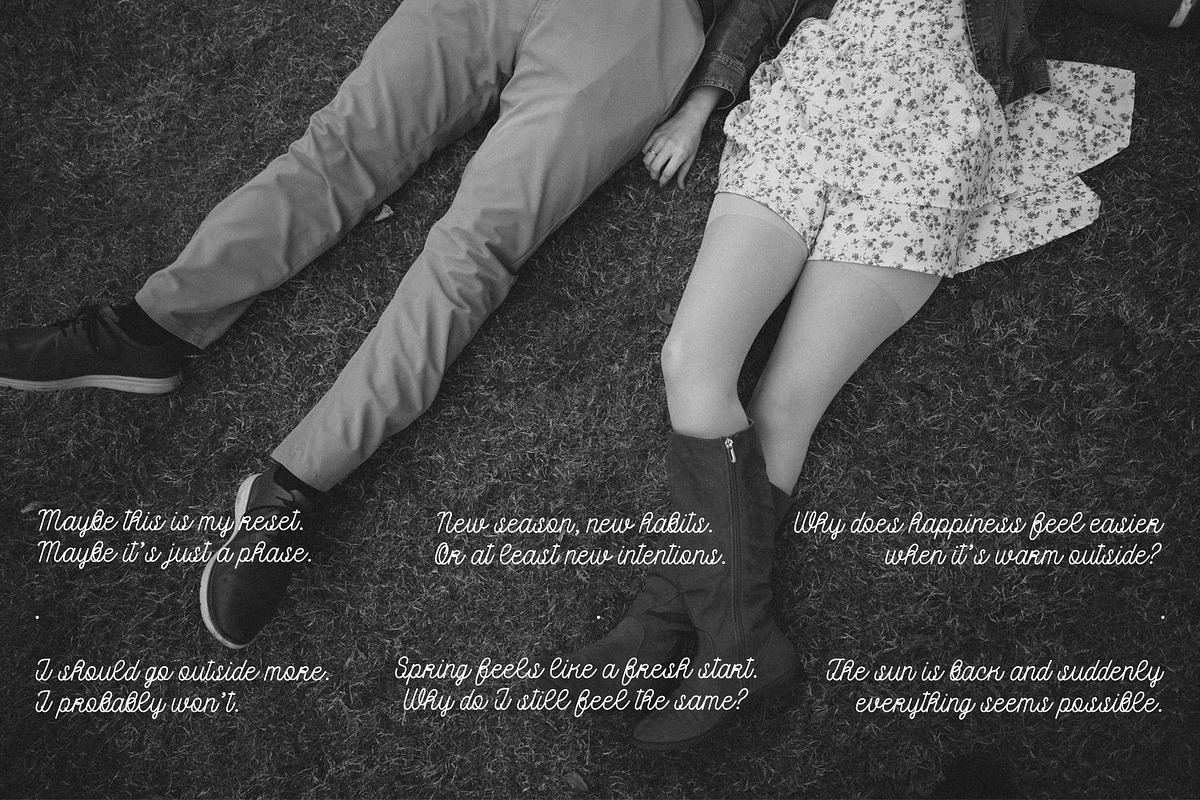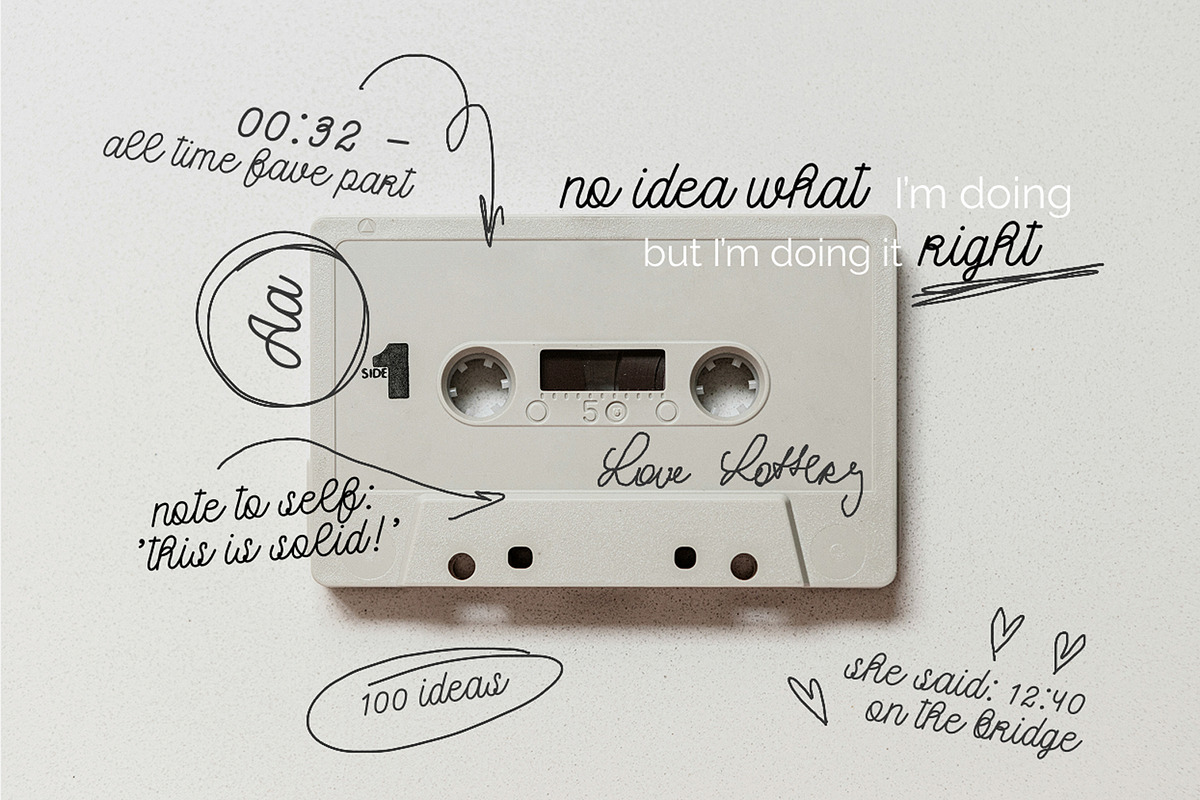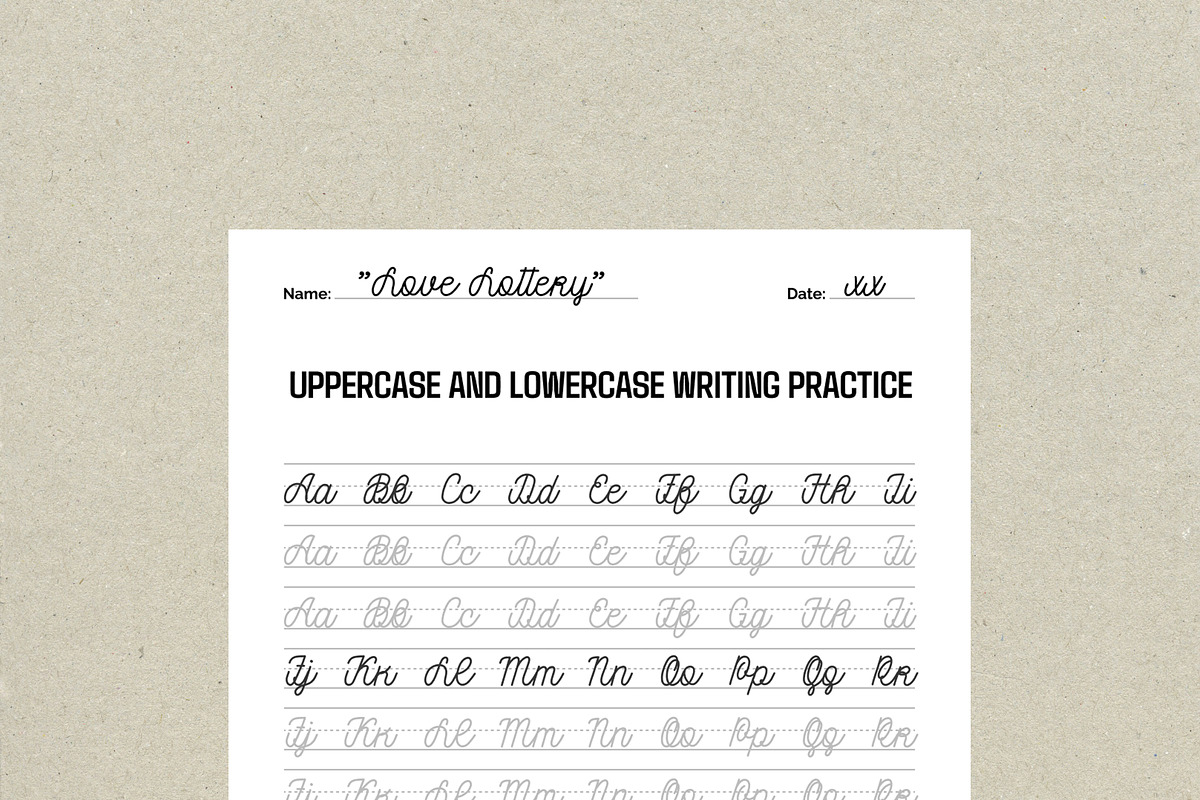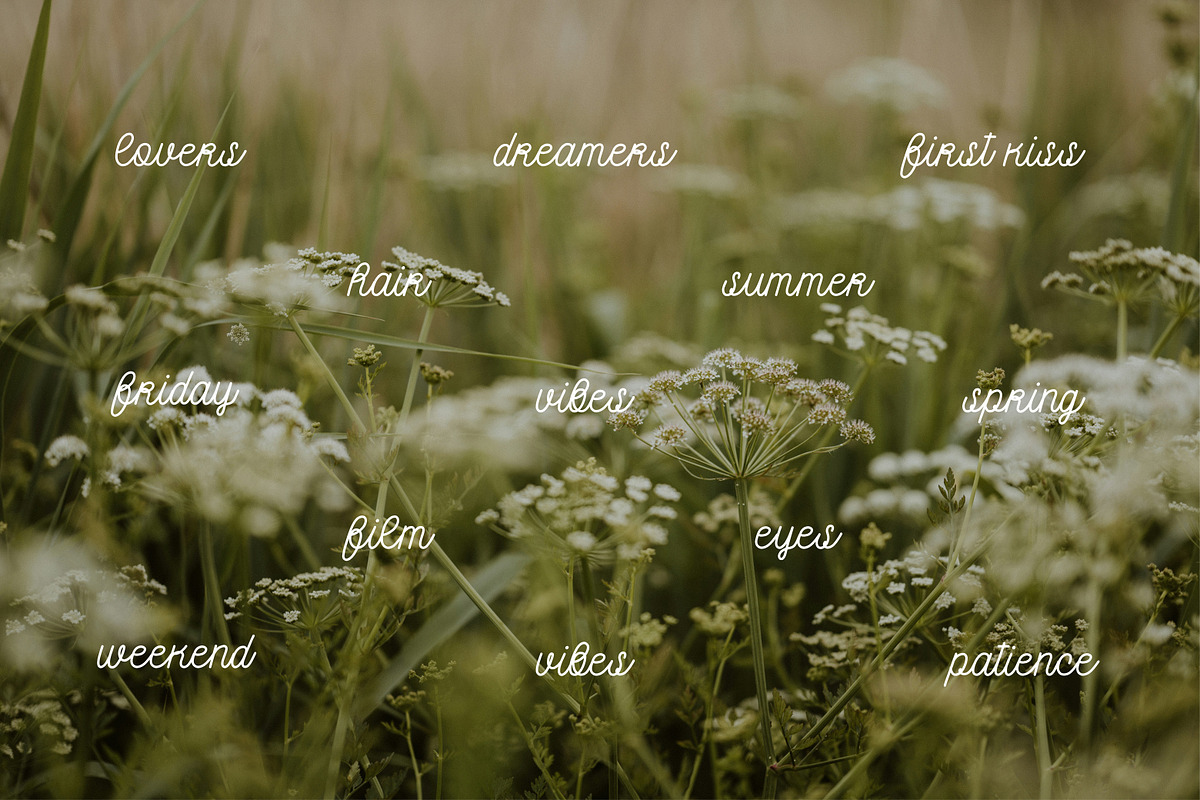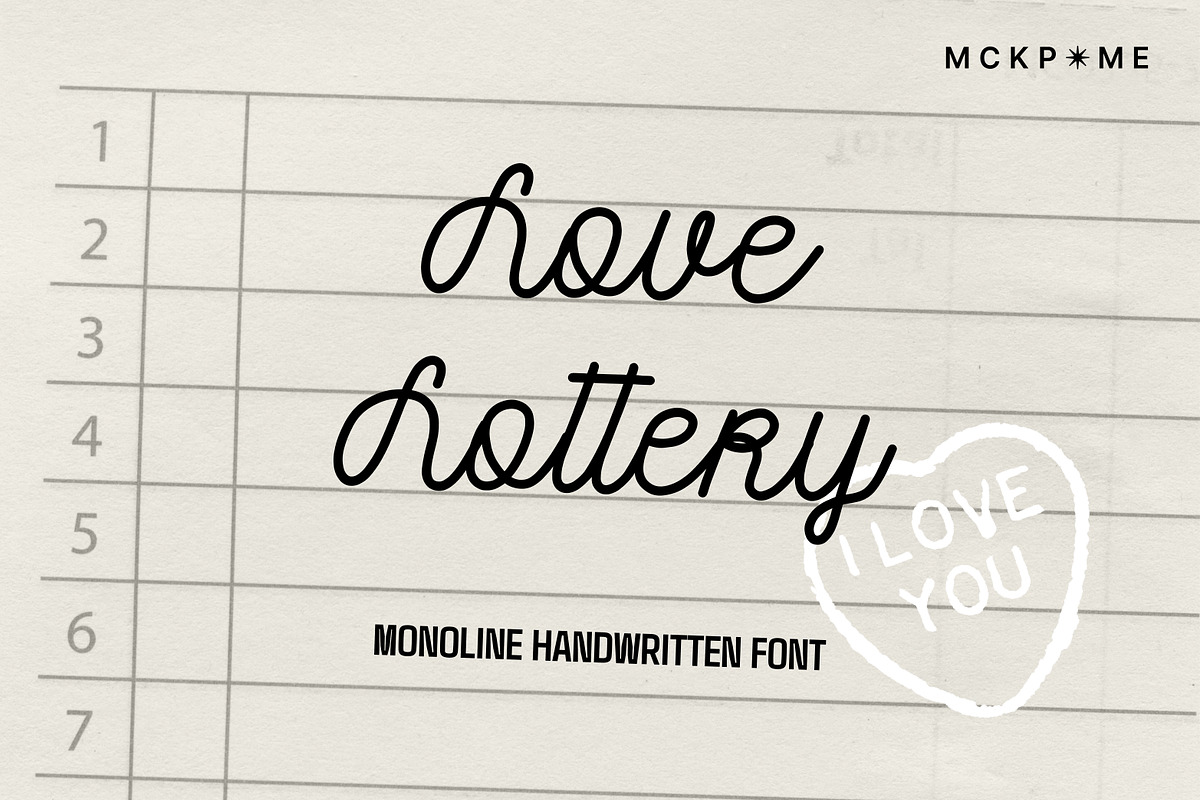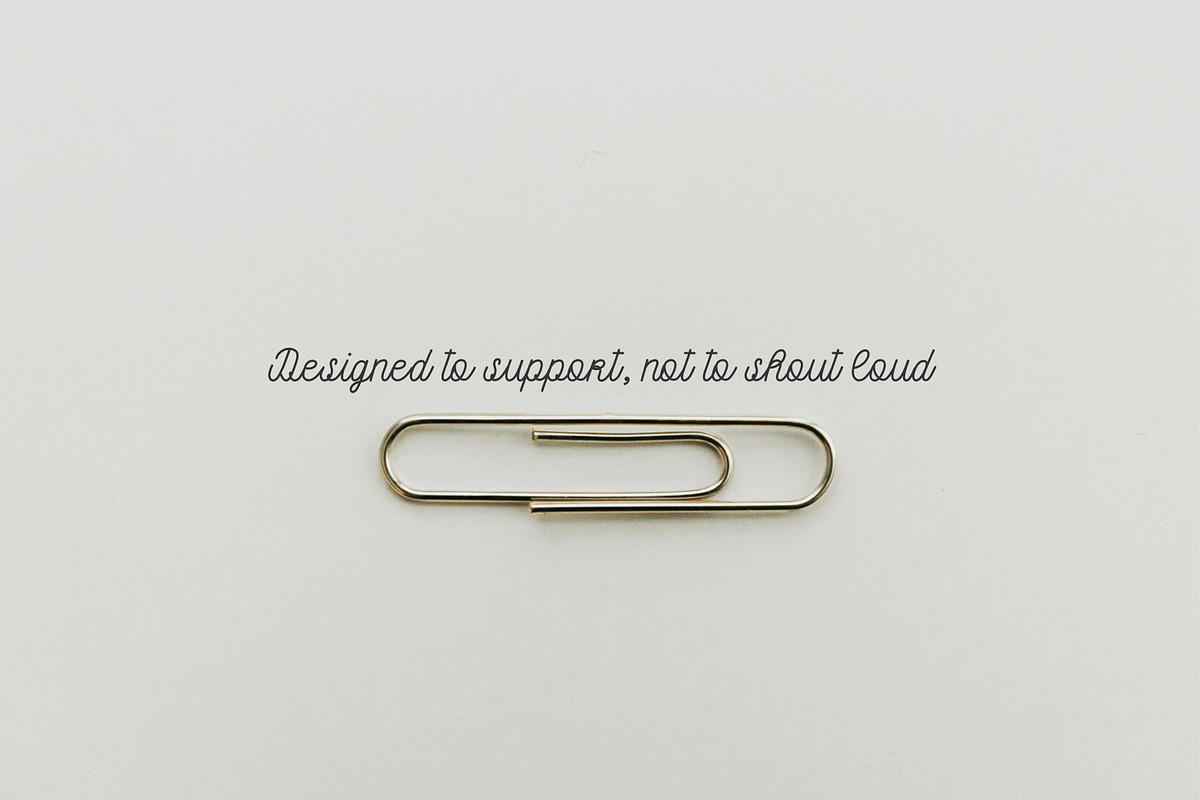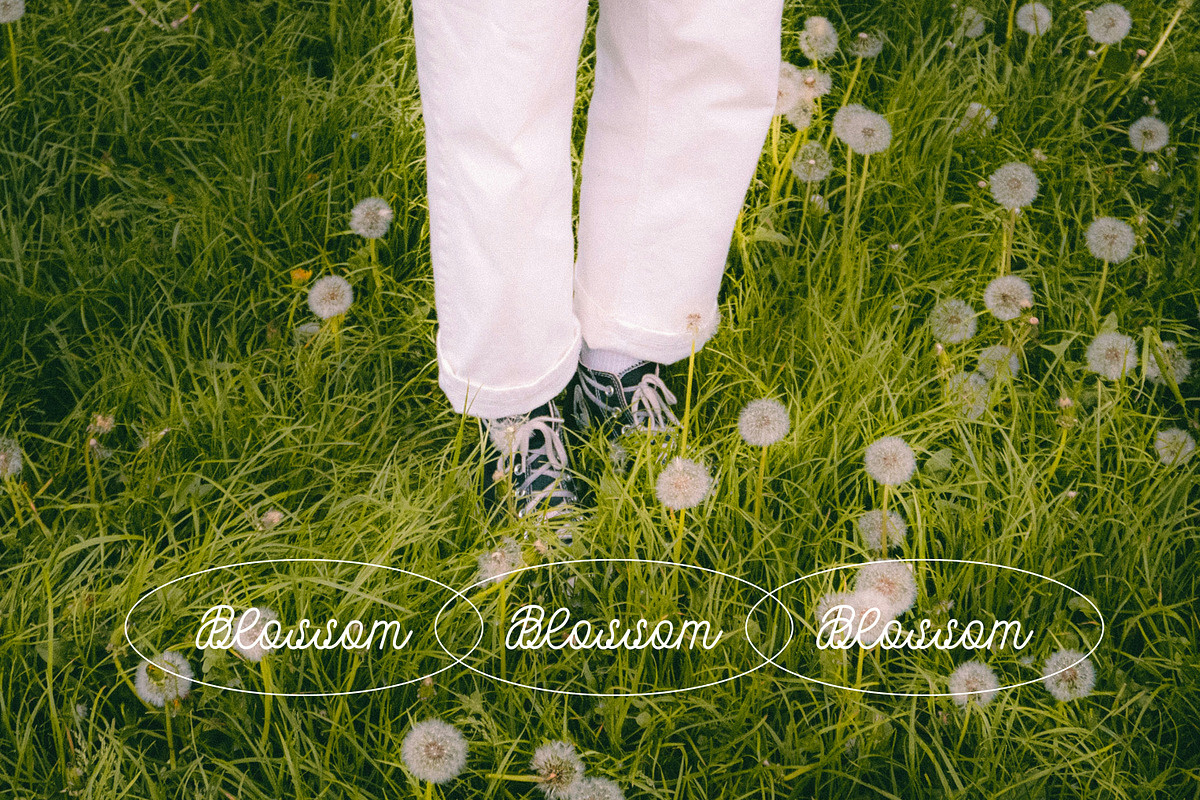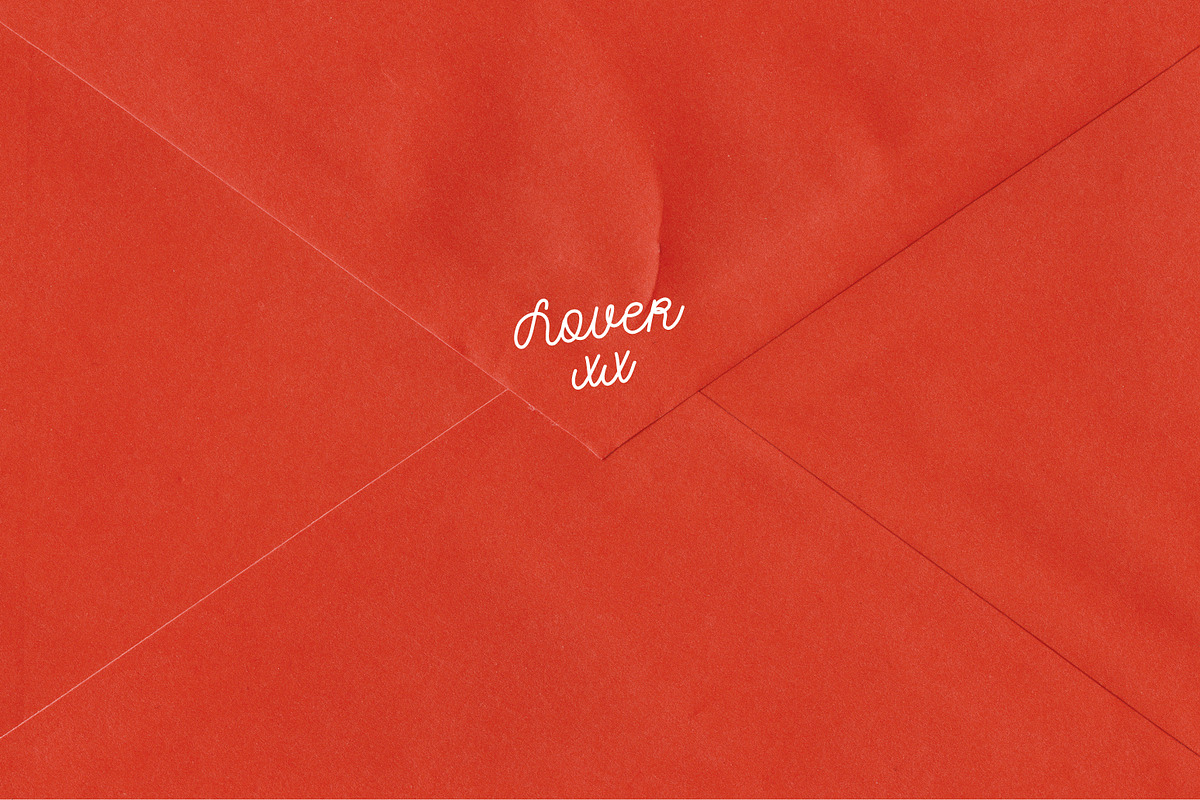
Love Lottery: Monoline font
“LOVE LOTTERY” is a clean monoline script with a soft, rounded feel.
It captures the look of naturally neat handwriting — simple, balanced, and easy to read. Effortless, but still full of character.
Designed for modern, minimal visuals, it works perfectly across a variety of projects.
Great for branding, social media, invitations, packaging, and everyday design.
Character set: • Uppercase alphabet • Lowercase alphabet • Numbers • Punctuation & symbols